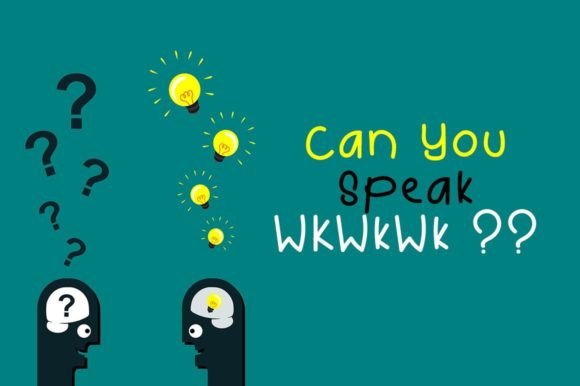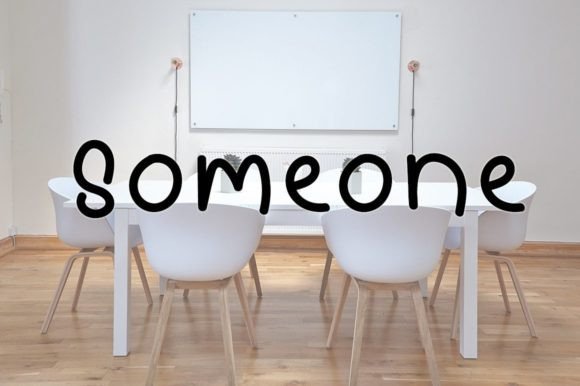
Introduction to Help Me Font
Have you ever found yourself stuck in the middle of a creative project, desperately searching for the perfect font to elevate your design? We’ve all been there – scrolling through font libraries, trying to find that one special something that will make our project shine. That’s exactly what happened to me the last time I was working on a digital presentation. I was on the hunt for a font that would convey warmth and friendliness, and that’s when I stumbled upon the Help Me Font.
| 👤 Author | Bill Kiss Studio |
With its high-quality design and transparent background, the Help Me Font is a game-changer for any creative project. This free download has become a valuable resource for designers, allowing us to add a personal touch to our designs without breaking the bank. Whether you’re a seasoned pro or just starting out, the Help Me Font is sure to become your new go-to font for any occasion.
Key Features of Help Me Font
- High-quality font with a transparent background, perfect for creative projects that require a clean and modern look.
- Designed with a unique, hand-drawn style that adds a personal touch to any design project.
- Available in 6 different sizes, ranging from 12 to 72 points, to accommodate various design needs.
- Resolution: 300 DPI, ensuring crisp and clear typography even in large formats.
- Suitable for a wide range of creative projects, from print to digital media, making it a valuable design resource.
Honest Review: Help Me Font
As a designer, I’m always on the lookout for high-quality fonts to enhance my creative projects. The Help Me Font is a relatively new addition to my design resource library, and I’m excited to share my honest thoughts on its performance.
- Unique Design: Help Me Font offers a distinctive aesthetic that sets it apart from other fonts in its category.
- High-Quality Rasterization: The font’s high-quality rasterization ensures that it looks crisp and clear even at larger sizes.
- Limited Font Variations: Help Me Font has a relatively small character set, which may limit its usability for certain creative projects.
- No Transparent Background Option: While the font itself looks great, it doesn’t offer the option for a transparent background, which can be a drawback for designers working with complex backgrounds.
Overall, I’m impressed with Help Me Font’s unique design and high-quality rasterization. While it may have some limitations, it’s a solid addition to any designer’s library. If you’re looking for a distinctive font for your next creative project, Help Me Font is definitely worth checking out.
Tips for Getting the Most Out of Help Me Font
To get the most out of Help Me Font, use it in conjunction with a transparent background to create a clean and modern design. This font is ideal for creative projects that require a high-quality, professional look.
Help Me Font is commonly used in:
- Marketing materials and brochures
- Websites and landing pages
Help Me Font is a free download, making it an excellent design resource for creative projects. With its high-quality design and transparent background, it’s perfect for designers and non-designers alike.